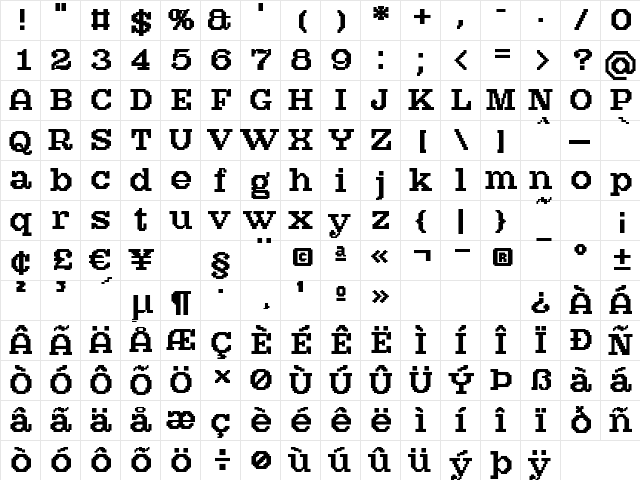
AtlantisHeadBold Regular
Design Context for AtlantisHeadBold Typeface
AtlantisHeadBold takes a measured approach to typography — its balanced proportions and neutral character make it a reliable workhorse for both digital and print work. Its bold stroke weight gives it real presence on the page.